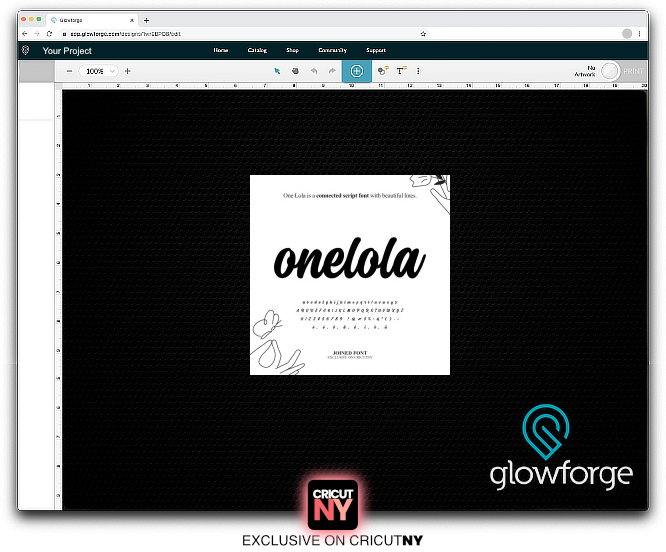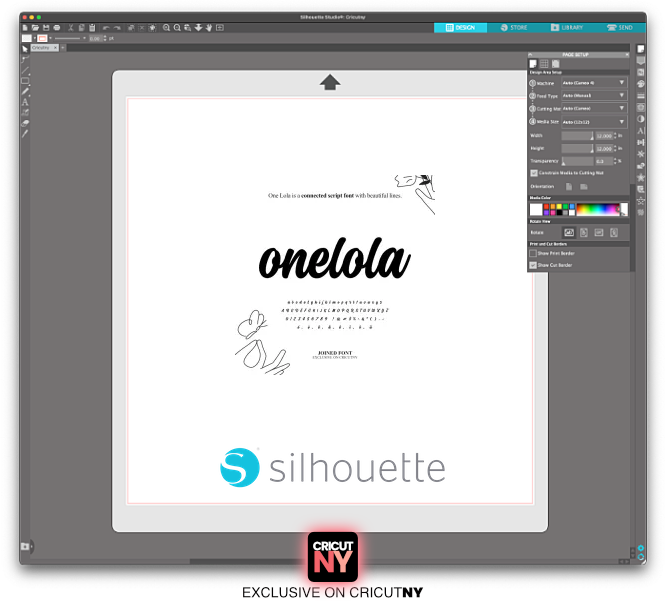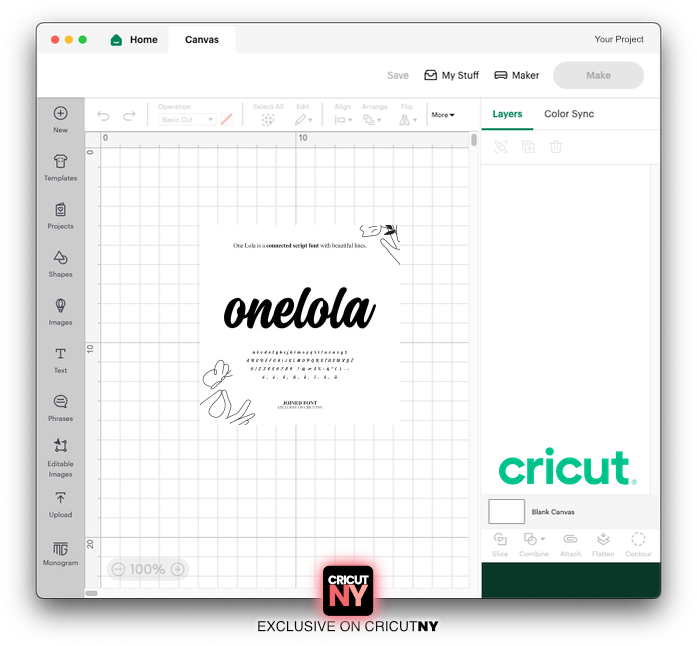
A Connected Script Font with Joined Letters
The joined font has been created for the specific needs of cutting projects.
One-Lola is a connected script font with a touch of handwriting.
Some crafters need a specific script font with joined letters. A connected font allows your project to be cut into a one-piece art. This is especially important for people using a laser-cutting machine to create a custom name wooden sign. If you are using the Cricut or the Silhouette cutting machine, it helps cut connected letters. Designing a font for this purpose was challenging, but here you have it. The font is gorgeous. The curves are equally aligned and proportionally designed.
The connected One-Lola font is optimized for Cricut and all the cutting machines. And the font works perfectly on any design application (Adobe, Affinity, etc.).
Parlez-vous Français? The font includes french accents.